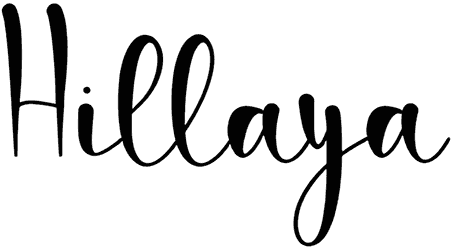
Hillaya Font
If you need an elegantly designed font to impress your audience, the Hillaya font may be an appropriate choice. This script font has a playful style that grabs your attention at first glance.
Thus, it can be helpful for various cases such as flyers, magazine covers, and advertisement projects. Moreover, the Hillaya font’s letters have soft edges and a curvy shape that sends a friendly vibe. Their fantastic form with thin tails seems attractive, so give it a try.
Hillaya is a very casual modern handwritten font.
very elegant writing and looks very beautiful, suitable for wedding invitations, greeting cards, logo designs, t-shirt designs, etc.